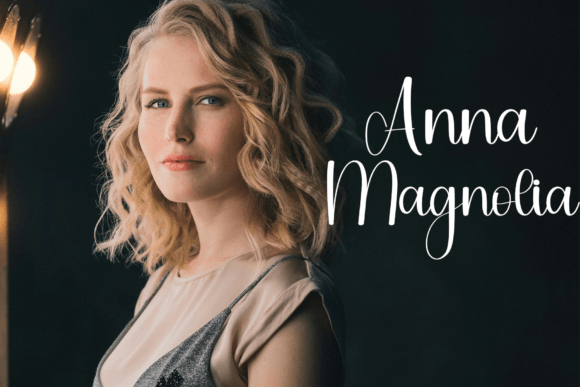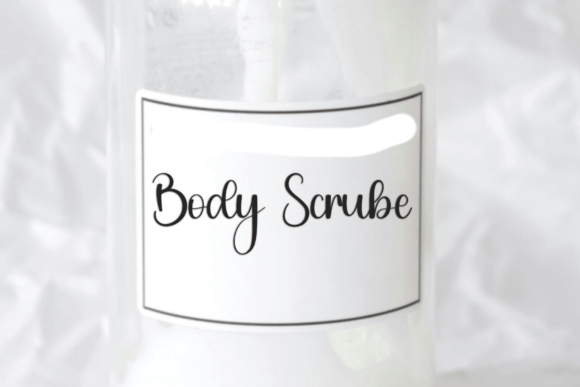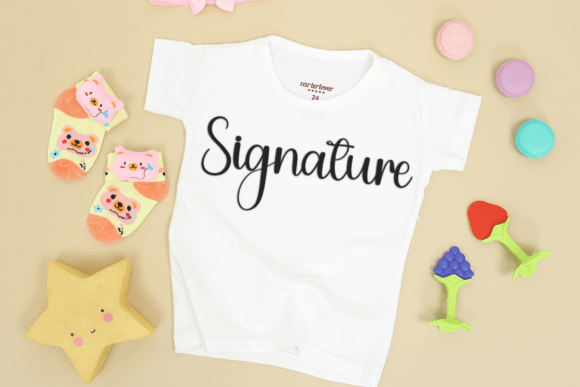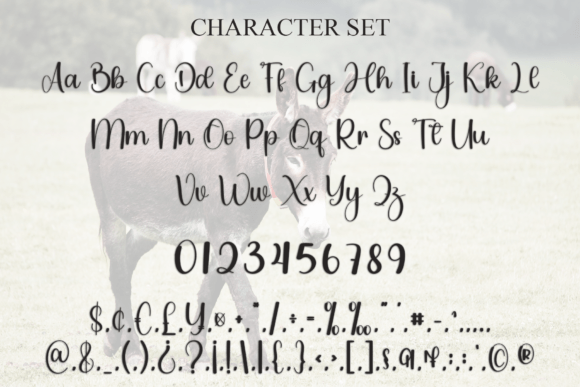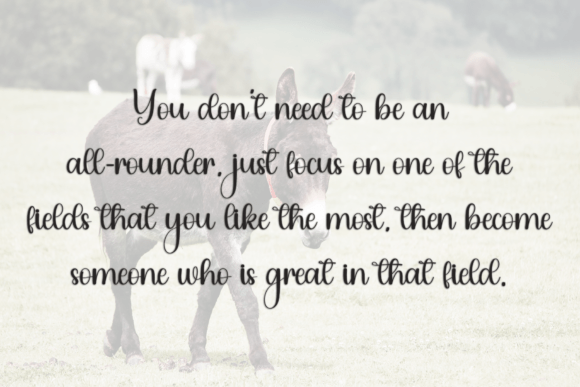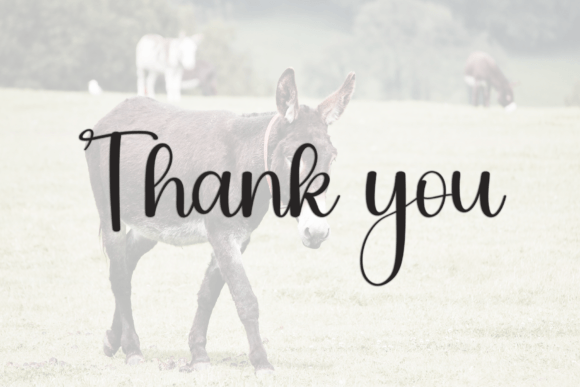
The Donkey Font: A Cool and Modern Handwritten Style for All Occasions
An Honest Review of Donkey Font
The Donkey font has quickly become one of my go-to fonts for various design projects. Here’s what I love about it:
- ✨ Unique and modern style: The Donkey font has a fresh and contemporary look that sets it apart from other handwritten fonts.
- ✅ Highly versatile: Whether I’m working on a craft project, digital design, presentation, or greeting card, the Donkey font seems to fit right in.
- 💫 Elegant and playful: The font strikes the perfect balance between elegance and playfulness, making it suitable for a wide range of occasions.
While the Donkey font is amazing, it’s not without its quirks:
- 🤔 Limited use of uppercase letters: Some users have noted that the uppercase letters in the Donkey font can be a bit limited in their use, but this doesn’t detract from the font’s overall charm.
- ⚠️ Requires OpenType features: To get the most out of the Donkey font, you’ll need to use it with OpenType features, which can be a bit tricky for beginners.
The Backstory of Donkey Font
The Donkey font was designed by a team of typographers who wanted to create a modern, handwritten font that’s both elegant and playful. Inspired by the simplicity and charm of handwritten letters, the Donkey font is perfect for a wide range of design projects.
| Font Name | Donkey Font |
| Author | Creatype Designer |
| What is the Donkey font best used for? | The Donkey font is best used for design projects that require a modern, handwritten style, such as crafts, digital design, presentations, and greeting cards. |
| Is the Donkey font suitable for body text? | While the Donkey font is elegant and easy to read, it’s best used for headings and titles rather than body text. |
| Is the Donkey font available in multiple languages? | Yes, the Donkey font supports multiple languages, but be sure to check the font’s language support before using it. |